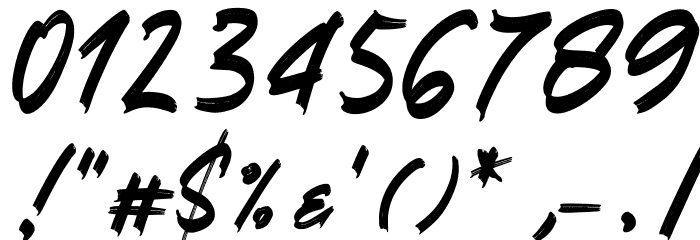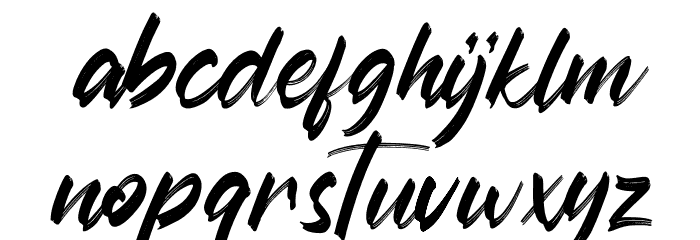
Austhind Font
This font features a dynamic and energetic script style, characterized by its bold, sweeping strokes and a sense of movement. The letters are slightly slanted, giving it a casual yet sophisticated appearance. The uppercase letters are particularly striking, with exaggerated curves and flourishes that add a touch of flair. The lowercase letters maintain a consistent flow, enhancing readability while retaining the font's expressive nature. Numbers and special characters are crafted with the same attention to detail, ensuring a cohesive look across all text elements. This font is ideal for projects that require a personal, handwritten touch.
A bold, dynamic script font with sweeping strokes and a casual elegance.
• Category: Script
• Bold: Yes
• Italic: No
• Weight: Bold
• Width: Normal
• Character Spacing: Normal
• Contrast: Medium
• Overall Style: Modern
• Use Case: Logos, Headlines, Invitations